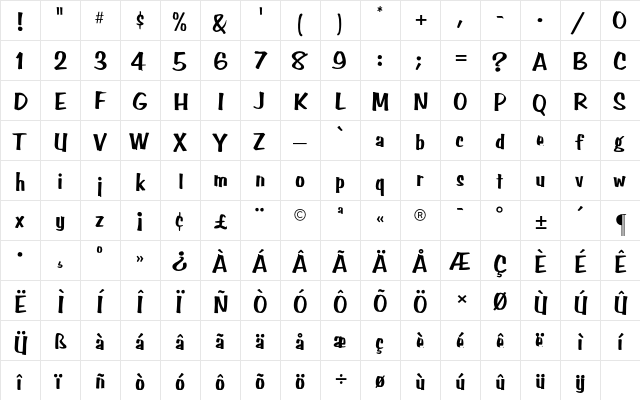
Benguiat Frisky CG Bold
| Foundry | Agfa Corporation |
Design Context for Benguiat Frisky CG Typeface
Benguiat Frisky CG is a composed and adaptable typeface that performs quietly and consistently across a wide range of design contexts. Its bold stroke weight gives it real presence on the page.